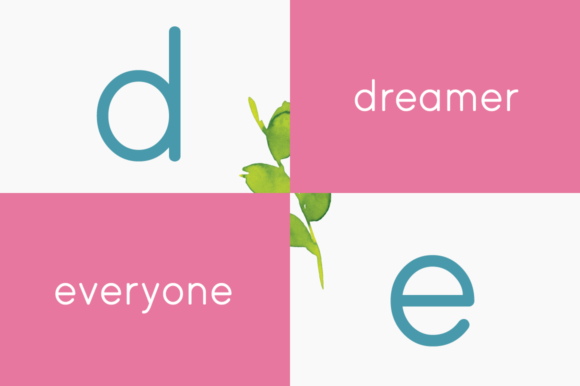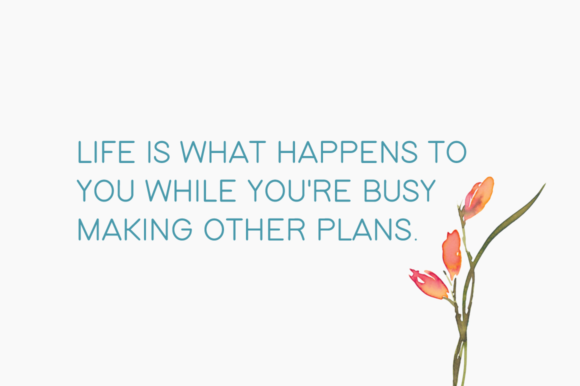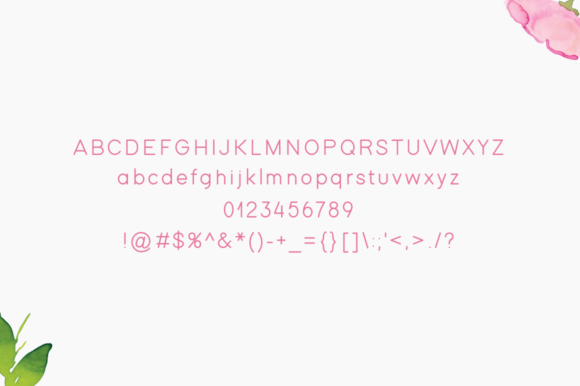
Introduction to Plight Regular Font
Have you ever been working on a creative project, pouring your heart and soul into it, and suddenly, you’re stuck on the perfect font? The one that will elevate your design and make it truly stand out? If you’re a designer, you know that finding the right font can be a game-changer.
That’s where the Plight Regular Font comes in – a magical display font that’s carefully crafted with a touch of elegance. With its high-quality design and transparent background, it’s the perfect addition to any creative project. Whether you’re working on a branding campaign, a website, or a social media graphic, the Plight Regular Font is sure to make your design shine.
Key Features of Plight Regular Font
- Unique, hand-drawn design ideal for creative projects and artistic expressions.
- High-quality font with transparent background, allowing for seamless integration into various design elements.
- Supports a wide range of languages, including Latin, Cyrillic, and Greek alphabets, making it a versatile design tool.
- Features a clean and elegant design, perfect for use in various creative projects, from logos to typography-based artworks.
Honest Review: Plight Regular Font
As a designer, I’m always on the lookout for high-quality fonts that can elevate my creative projects. Recently, I had the chance to try out the Plight Regular Font, and I must say it’s been a game-changer for me.
- ✨ The Plight Regular Font is incredibly versatile and can be used for a wide range of creative projects, from branding and advertising to digital design and publishing.
- ✨ It has a clean and modern design that makes it perfect for creating a professional and sophisticated look.
- ✨ The font also comes with a transparent background, which allows for seamless integration with any design project.
While the Plight Regular Font has its strengths, there are a few limitations to consider.
- ⚠️ The font may not be as bold or attention-grabbing as some other fonts on the market, which could be a drawback for designers who need to make a statement.
- ⚠️ The font is not available in as many weights or styles as some other popular fonts, which may limit its use in certain design contexts.
Overall, I’m really impressed with the Plight Regular Font. Its high-quality design, versatility, and free download make it a valuable design resource for any creative project. While it may have some limitations, I think it’s definitely worth checking out for designers looking to elevate their work.
To get the most out of the Plight Regular Font, use it on a transparent background to create a clean and modern design. You can also experiment with different font sizes and styles to create a unique look.
The Plight Regular Font is commonly used in creative projects such as graphic design, digital art, and typography. It’s also suitable for use in business presentations, documents, and websites that require a professional and modern look.